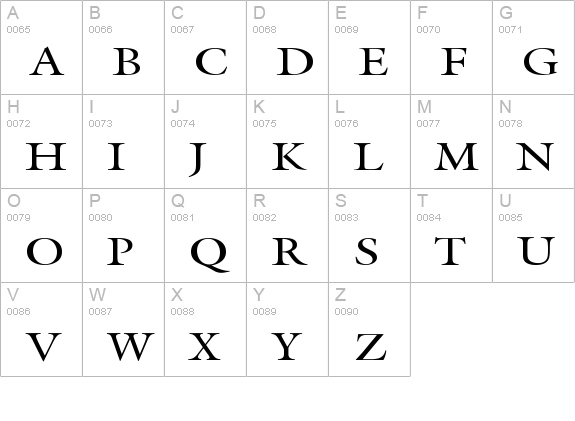
Galant Wide Normal is the standard, neutral, extended-width variant in the Galant typeface family \xE2\x80\x94 well suited to general body text, paragraphs, and standard typographic work.
Galant Wide Normal is a stylish and versatile font that exudes sophistication and elegance. With its clean lines and balanced proportions, this font is perfect for a wide range of design projects, from professional websites to modern print materials. Featuring a wide letterform, Galant Wide Normal makes a bold statement while maintaining readability. Its timeless appeal is enhanced by the seamless blending of thick and thin strokes, creating a harmonious balance that catches the eye and commands attention. This font is not only visually stunning, but it also offers a high level of usability. Its legibility ensures that your message will be conveyed clearly and effectively, whether it's in headlines, body text, or captions. Galant Wide Normal is a versatile choice that can adapt to any design concept, making it a valuable asset for both professional designers and casual enthusiasts. What's even better is that Galant Wide Normal is available for free download at FontsMarket.com. This means that you can easily access and use this remarkable font without any hassle or cost. FontsMarket.com is a trusted source for high-quality fonts, providing a wide variety of typefaces that cater to every design need. So, if you're looking for a font that combines elegance, versatility, and affordability, look no further than Galant Wide Normal. Download this stunning font from FontsMarket.com today and elevate your designs to new heights.